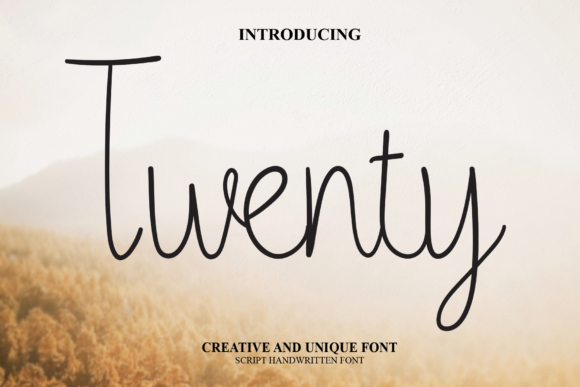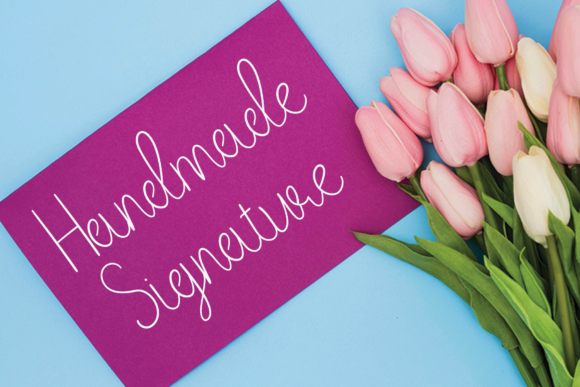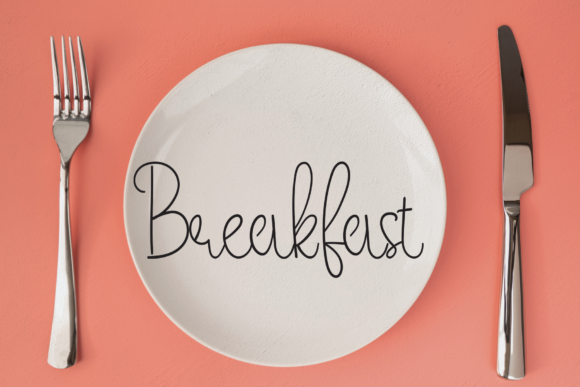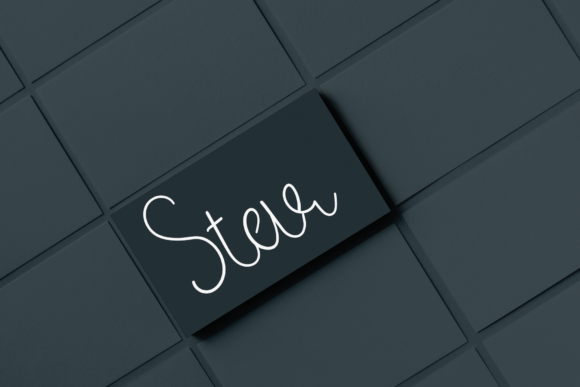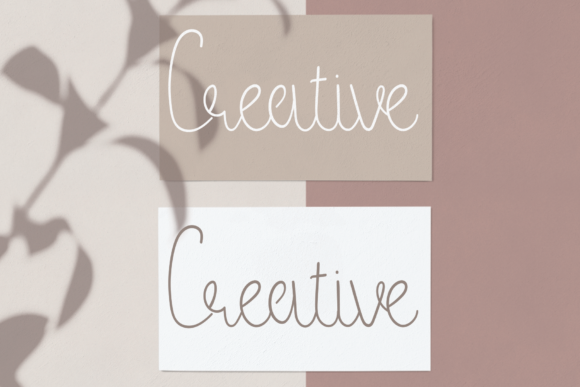
Twenty Font
About Twenty Font
“Twenty” is a charming handwritten font that has been meticulously crafted to deliver the anticipated outcomes. This font is well-suited for a variety of projects, including logos, branding initiatives, labels, photography work, watermarks, special events, and any other creative endeavors that could benefit from a touch of beautiful script style.
The font’s sweet handwritten aesthetic exudes a sense of warmth and personality. Whether you’re working on logos that need an inviting touch, branding projects that require a personal feel, labels that demand a unique flair, or any other design that calls for an element of beauty, “Twenty” can enhance your work with its delightful and artistically crafted appeal.
The careful attention to detail in crafting “Twenty” ensures that it’s a font capable of producing the expected results across various projects. Its handwritten charm makes it a versatile choice for conveying emotions, connecting with audiences, and adding a personal touch to your creations.
In summary, “Twenty” is more than just a font—it’s a creative tool designed to elevate your design projects. Its sweet handwritten style and versatile application make it a valuable asset for designers striving to create designs that are visually appealing, emotionally engaging, and elegantly inviting, leaving a lasting impression.